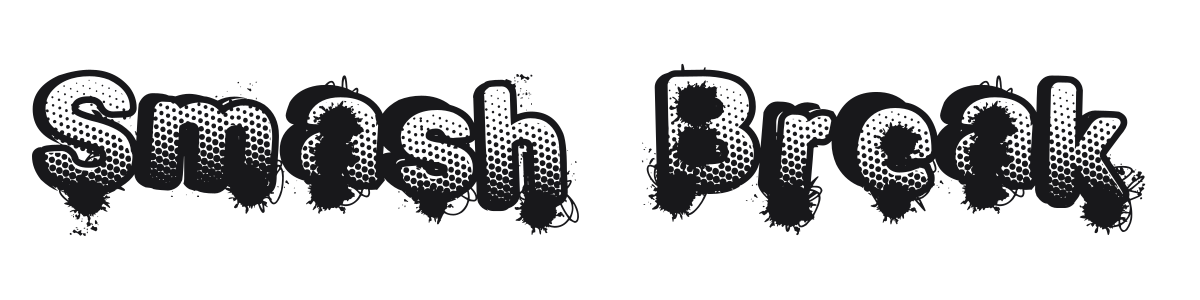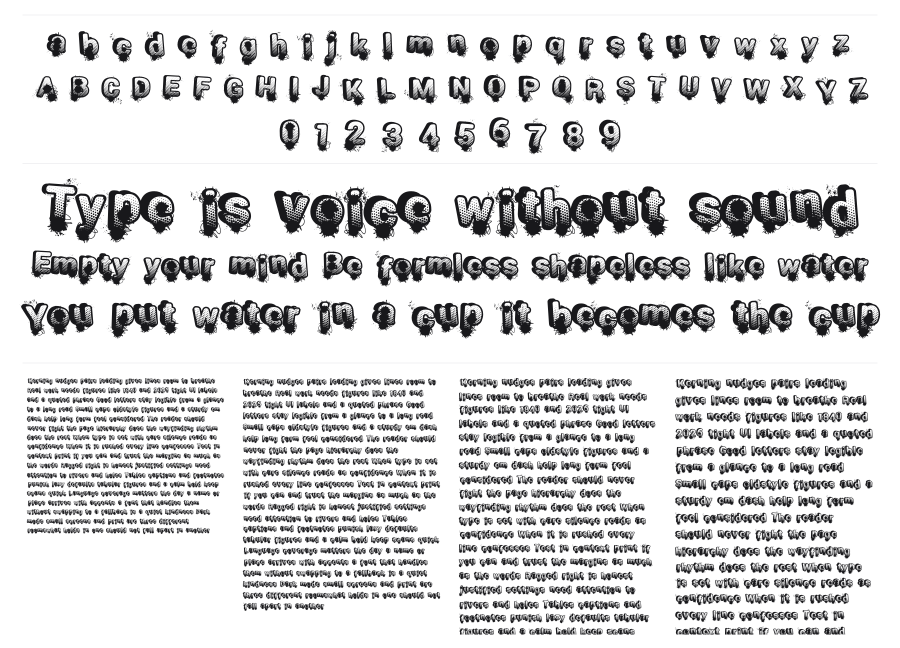
Smash Break
Smash Break is a heavy display font that layers halftone dot fills, ink splatter, and eroded edges into one explosive typographic treatment. Each character looks like it was pulled from a spray-painted, screen-printed poster that got left in the rain. The style lands squarely in skate culture, underground music, and street art territory.